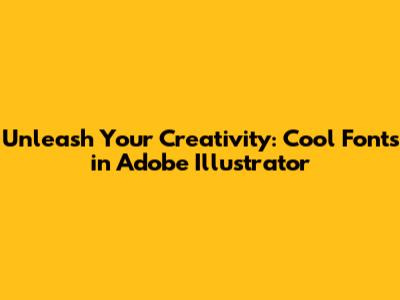
Adobe Fonts: If you have an Adobe Creative Cloud subscription (which you probably do if you're using Illustrator), you already have access to a massive library of fonts through Adobe Fonts (formerly Typekit). This is an absolute goldmine. The collection is incredibly diverse and includes both free and premium fonts, so you're bound to find something you love. The best part? They integrate seamlessly with Illustrator. Adobe Fonts is your best place to start. It is a fantastic font library, and it's built right into your apps. There are tons of fonts to choose from here.
Google Fonts: Google Fonts is a completely free resource that's home to thousands of high-quality, open-source fonts. It is totally free and easy to use. These fonts are all licensed for both personal and commercial use, making them a fantastic option for any project. You can download individual fonts or entire font families, and they're super easy to install on your computer. They are also optimized for the web, so if you're working on a web design project, they're a great choice.
DaFont: DaFont is a popular website with a vast collection of free fonts. You can find fonts categorized by theme, style, and popularity. Always check the license of each font before using it, as some may only be for personal use. It is a treasure trove of fonts. Some fonts are amazing, and some are…well, not so much. I recommend going through the website carefully.
Font Squirrel: Font Squirrel is another excellent resource for free, high-quality fonts. They focus on finding fonts with commercial-use licenses, so you can rest assured that you can use them in your projects without any legal worries. They also have a handy font identifier tool that can help you find similar fonts.
Creative Market: If you're looking for more premium, unique fonts, Creative Market is a great place to start. They offer a huge selection of fonts from independent designers, and you can often find some amazing deals. It is a great place to find some really unique fonts. They have fonts that you won't find anywhere else. Sometimes it is worth paying a bit more to get something unique and special.
MyFonts: MyFonts is another excellent marketplace for premium fonts. It offers a huge selection from a large number of foundries. You can search for fonts based on style, classification, and even the designer. Like Creative Market, you're likely to find something that perfectly suits your needs.
Hey there, design enthusiasts! Ever feel like your Adobe Illustrator projects are missing that certain je ne sais quoi? Maybe your fonts are feeling a little…blah? Fear not, because we're diving headfirst into the world of cool fonts in Adobe Illustrator, and trust me, it's a game-changer. Finding the perfect font can elevate your designs from good to absolutely amazing, and I'm here to guide you through it. We'll explore where to find these typographic treasures, how to install them, and how to use them to create stunning visuals that will grab everyone's attention. So, grab your coffee (or your beverage of choice), and let's get started on this exciting journey to font mastery! Because let's face it, choosing the right font is like choosing the right outfit; it can totally make or break your look. Let's make sure your designs are always dressed to impress.
Why Fonts Matter in Adobe Illustrator
Okay, guys, let's talk about why fonts in Adobe Illustrator are so darn important. Think of fonts as the voice of your design. They communicate a message, set a tone, and create a visual hierarchy that guides the viewer's eye. A well-chosen font can speak volumes, conveying professionalism, playfulness, sophistication, or anything else you're aiming for. It's all about making an impression, right? A fantastic font can pull the viewer in and make them want to know more about the message you're trying to convey. On the flip side, a poorly chosen font can completely kill the vibe, making your design look clunky, outdated, or just plain confusing. So, yeah, choosing the right font is super important. It's about readability too, but it's more about setting the mood. Different fonts can completely change how a viewer feels about your design.
Let's break it down further. Fonts can influence how a design is perceived in a number of ways. A clean, sans-serif font might signal efficiency and modernity, making it a great choice for a tech company's website or app. A bold, serif font can evoke a sense of tradition and authority, which would be perfect for a law firm or a classic brand. A script font, on the other hand, can create a feeling of elegance and romance. It could be used for a wedding invitation or a fashion boutique's logo. Your choices must be tailored to your goals. The use of fonts is all about using the right fonts for the right situations and uses. The font is an art form. The font you choose needs to enhance your work.
So, before you start a project, take some time to think about what message you want to communicate and who your audience is. Researching fonts and what they can communicate will give you the right direction. Once you've got a clear idea of the tone and style you're going for, you can start exploring the world of cool fonts! And trust me, the possibilities are endless. Don’t be afraid to experiment, combine different fonts, and find combinations that create a real impact. If your design is for fun, use something zany. If you are doing something for a serious company, make sure you use a more mature font.